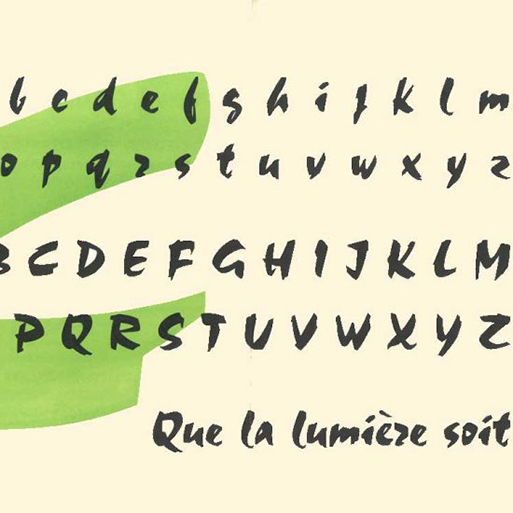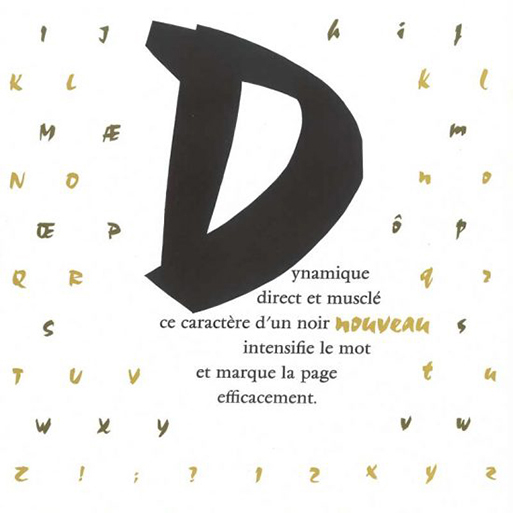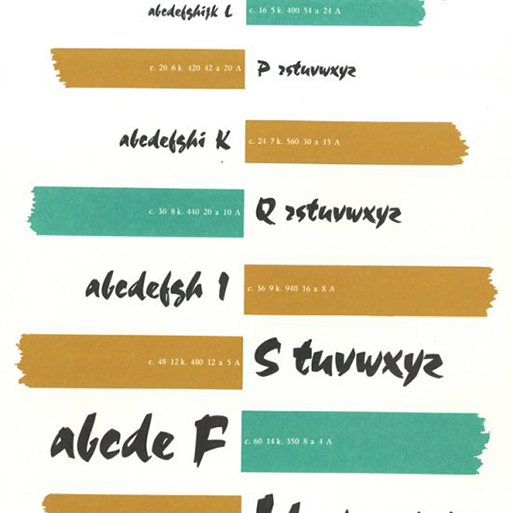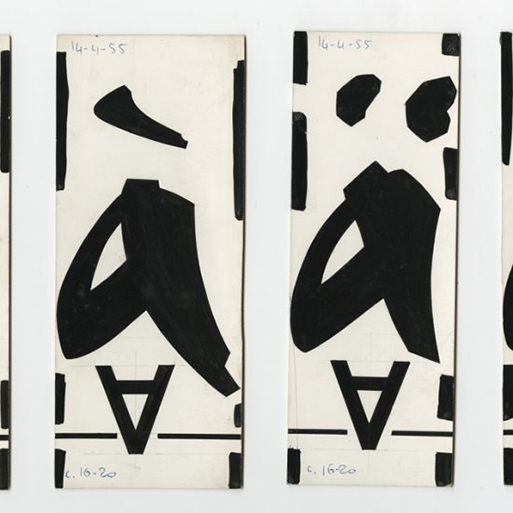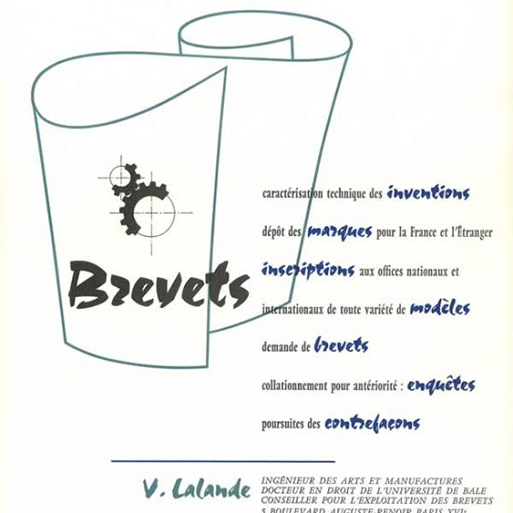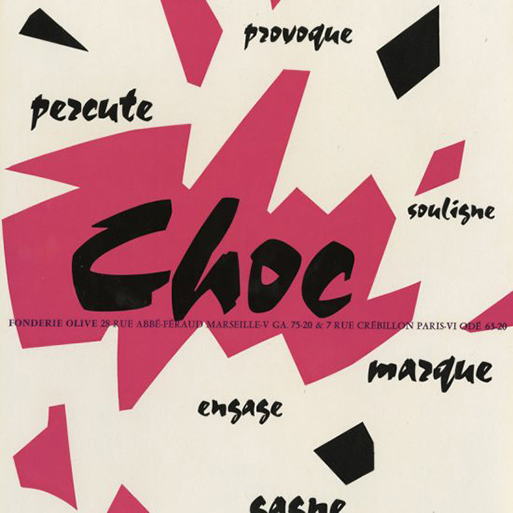
How Roger Excoffon's Choc shocked the Big Apple
Choc (French: "shock") is a display script typeface designed by Roger Excoffon in 1955. The typeface grew out of Excoffon's repeated and ultimately abandoned efforts to make a bold of his typeface Mistral.
In the 1980s, the prevailing opinion among designers was that, because of its lack of modernity, it was one of Excoffon's "tacky fonts that should only have been used for parodying the shop window of a provincial butcher, baker or hair salon". In the 1990s, Choc was distributed digitally with the graphics software CorelDraw under the name Staccato 555.
CorelDraw's widespread use in signmaking shops may have helped Choc in becoming widely used in signage. Because the letterforms evoke the forms of East Asian calligraphy (whether intentionally or not is unclear).
Choc is especially often used in signs for Asian businesses. The New York Times wrote in 2018 that "Choc has become a typographical shorthand for Asian-themed restaurants" in New York City, where it is frequently seen.
"It's a typeface that draws the eye with its inherent contradictions. It seems to have been drawn improvisationally with a brush, and yet it's so hefty it looks like it could slip off a wall. It's both delicate and emphatic, a casual paradox, like a Nerf weapon. Choc is far from the most popular typeface on the storefronts of New York, but it can still be found everywhere and in every borough. It's strewn on fabric awnings and etched in frosted glass. It gleams in bright magenta or platinum lighting. It's used for beauty salons, Mexican restaurants, laundromats, bagel shops, numerous sushi bars. It may be distorted, stacked vertically, or shoehorned into a cluster of other typefaces. But even here Choc remains clear and articulate, its voice deep and friendly, its accent foreign, perhaps, yet endearing. You've already seen it, probably repeatedly, like a stranger you recognize from your morning commute" reports NYT.